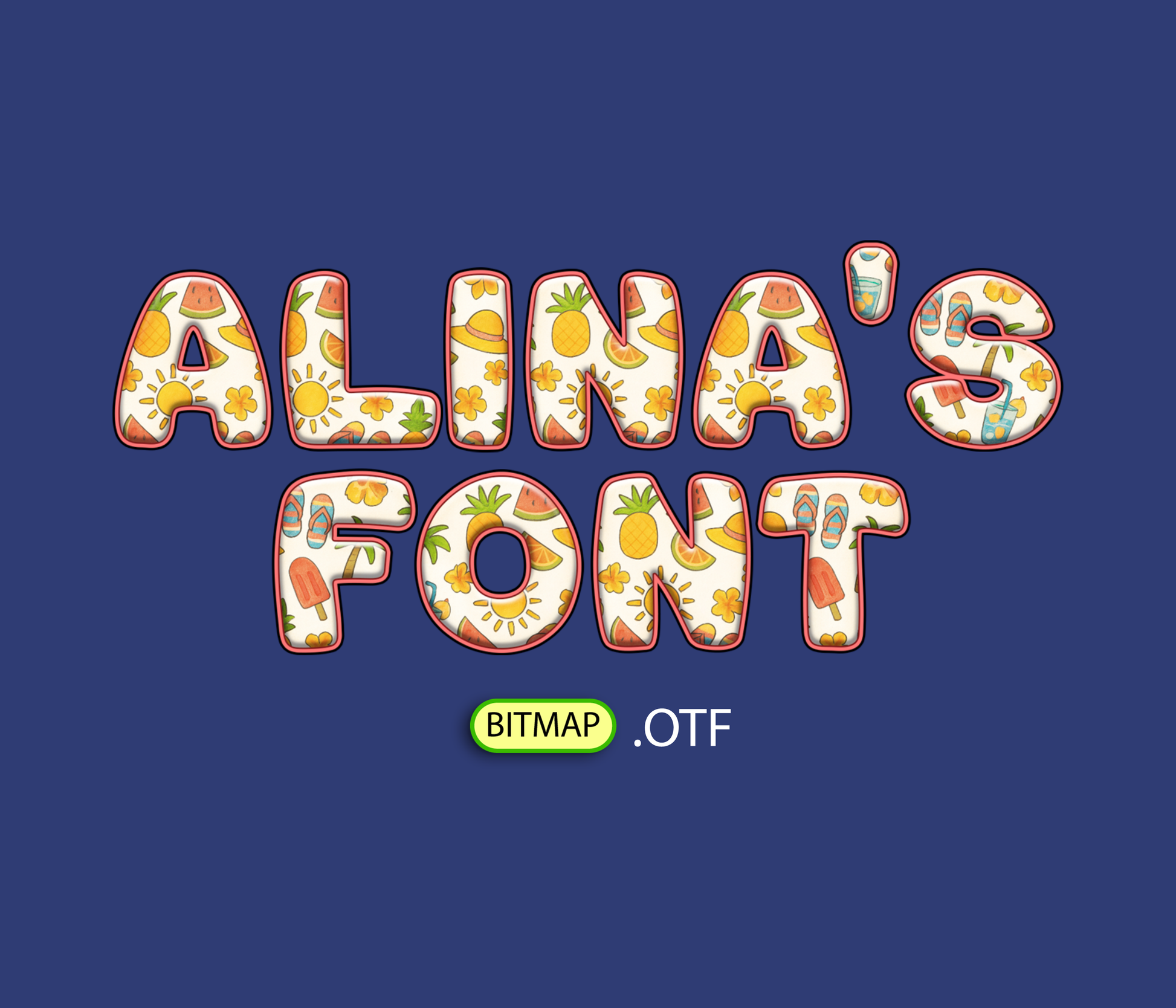
FREE Sunshine Breeze Pattern Font
Sunshine Breeze Typeface Textured
Embrace the warmth and joy of summer adventures with our Sunshine Breeze Typeface, capturing the essence of golden beaches and endless blue skies. Perfect for vacation brands, outdoor retailers, summer camps, and creative professionals, this font brings the carefree, vibrant spirit of beach days and poolside relaxation to your projects. Create radiant signage, summer-themed products, or digital content with the bright, cheerful essence of ice cream cones and seaside sunsets.
Our Sunshine Breeze Typeface features flowing, wave-inspired shapes and playful characters reflecting the relaxed yet energetic aesthetic of summer festivities. Ideal for:
- Tourism Industry: Create appealing logos, packaging, and promotional materials for beach resorts, summer festivals, and outdoor adventure companies
- Seasonal Design: Perfect for pool party invitations, summer camp materials, and celebration content that captures the magic of sunny days
- Digital Media: Enhance websites, blogs, and social media with bright headers and graphics that express joy and summer freedom
- Recreation Content: Add authentic character to travel guides, activity brochures, and promotional materials for summer entertainment venues
- Personal Projects: Bring summer charm to vacation scrapbooks, craft projects, and home decor inspired by the aesthetics of coastal living